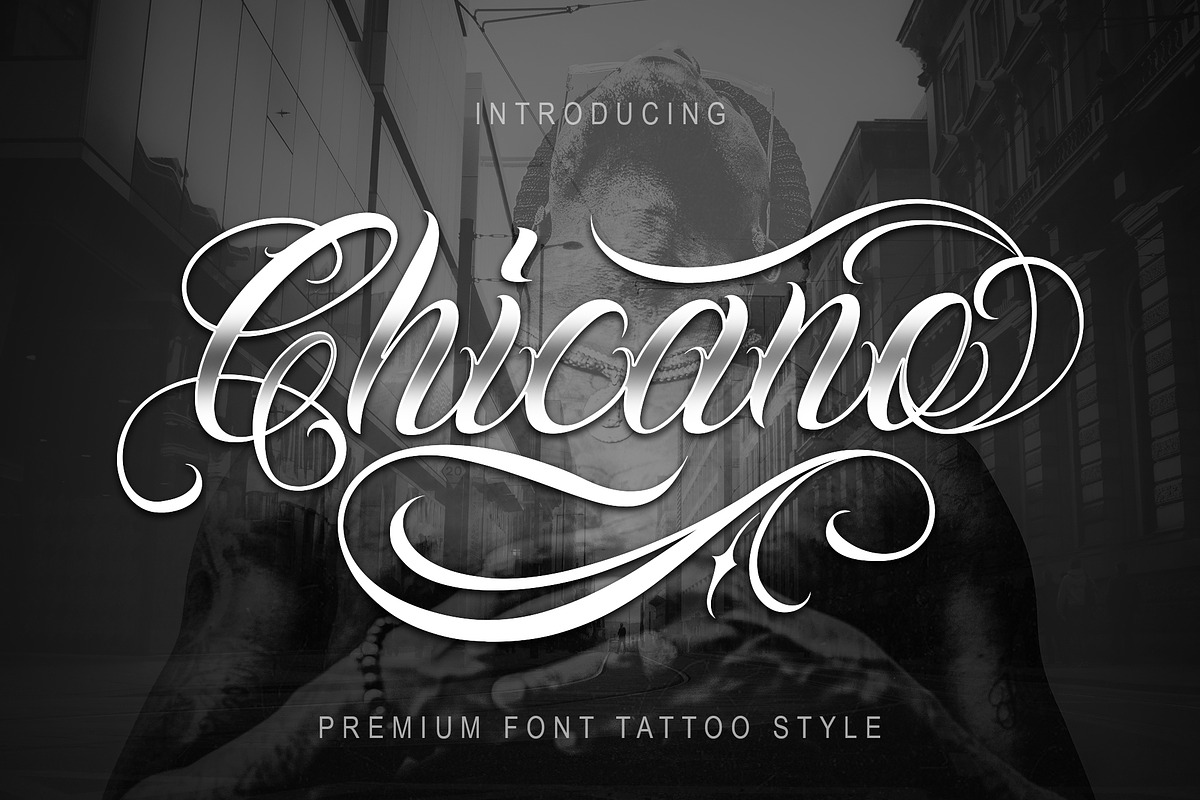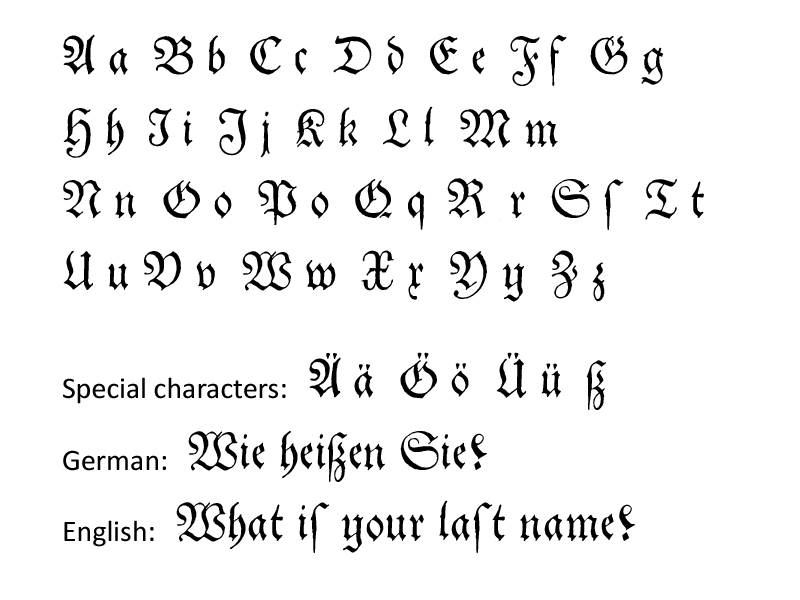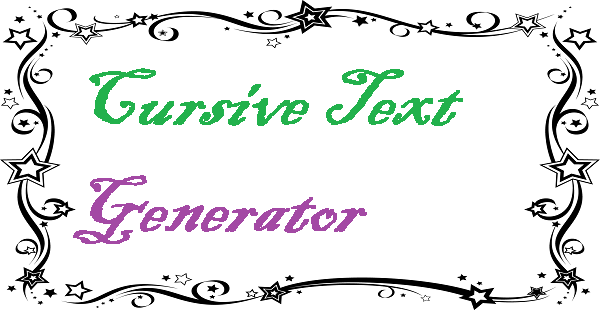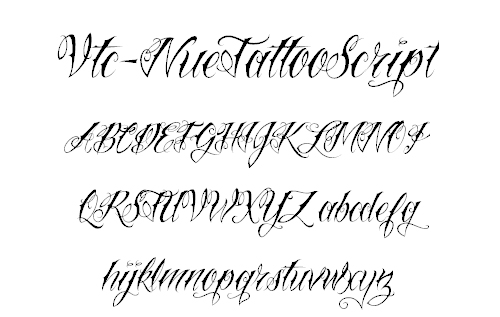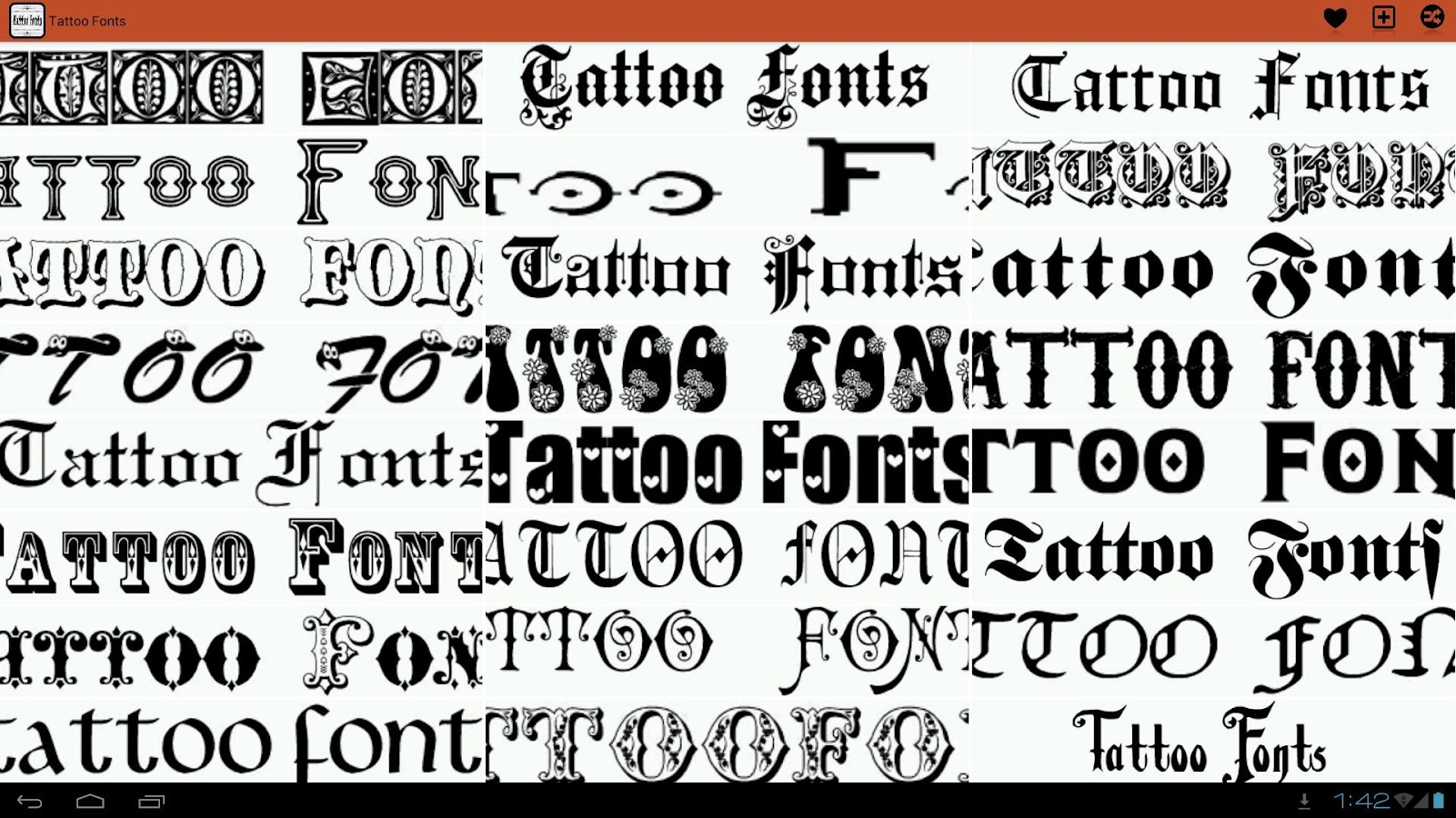
Tattoo Font Generator Tattoo Lettering
Find and download the right font for your next tattoo. The fonts we have available in our tattoo lettering generator arent the only options of course.
Tattoo font generator tattoo lettering. Women often choose more cursive type lettering while men often opt for bold or sharp lettering to express their masculinity. Lettering styles include tribal traditional sailor blackletter fancy cursive script etc. Once you are satisfy you can print the design and bring to you favorite tattoo shop.
You can also set the curve add text image angels and quotes as well. Reine text tattoos liegen heute immer mehr im trend und immer mehr menschen wahlen worte namen kurze zitate oder bedeutsame redewendungen um sich durch ihre tattoos auszudrucken. Theres literally thousands of different fonts you can download for free.
Tattoo schriftarten konnen verwendet werden um sich eine vorschau fur textbasierte tatowierungen zu erstellen und so einfacher uber diese zu entscheiden. Go italics elegant handwriting weird ancient arabic. The number of calligraphy fonts currently available is huge.